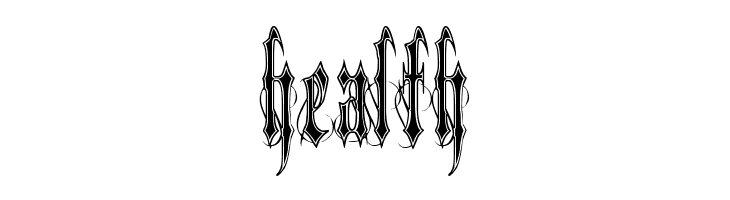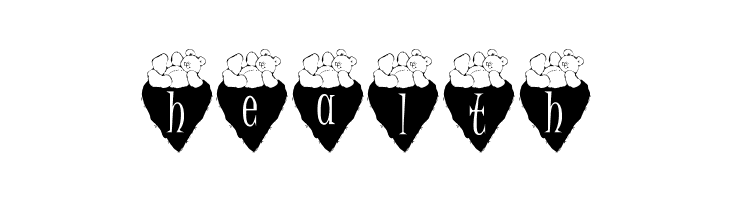
• Unicorn
• UppenArmsNF
A modern, geometric font with a blend of bold and script elements.
• VacationPostcardNF
A bold, three-dimensional font with a strong, playful presence.
• Valbears_kg
A playful, decorative font with characters encased in heart shapes topped with bears.
• Vestige
A futuristic, geometric font with a circuit-like design.
• Visions of the Dead
A bold, jagged font with a haunting, hand-drawn style.
• VlaanderenSquareNF
A bold, geometric slab serif font with a modern retro aesthetic.
• VladTepesII [Vlads Dad]
An ornate Blackletter font with intricate, gothic-inspired designs.
• VoltAL
A bold, pixelated font with a digital, retro aesthetic.
• VoltHR
A bold, geometric font with a modern, blocky style.